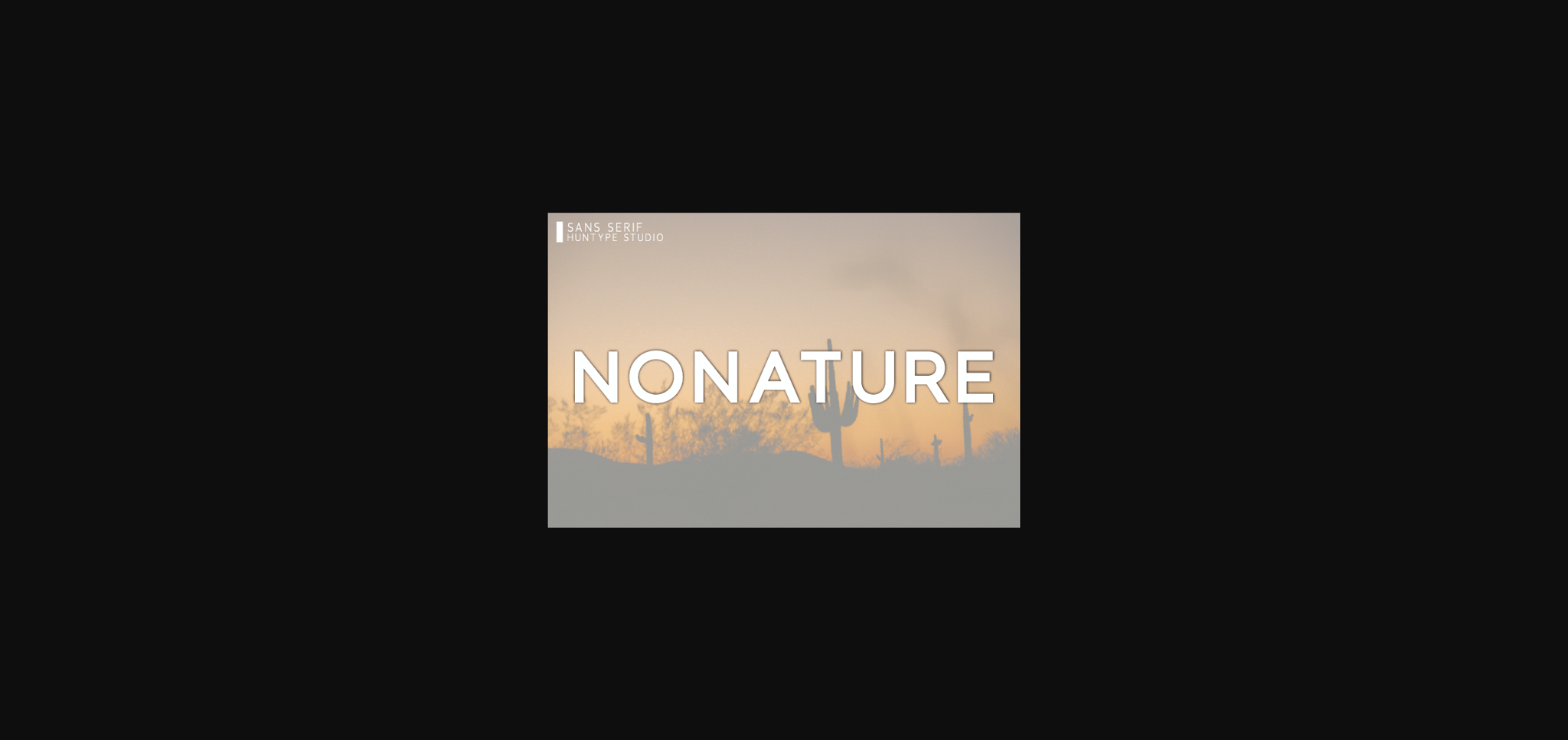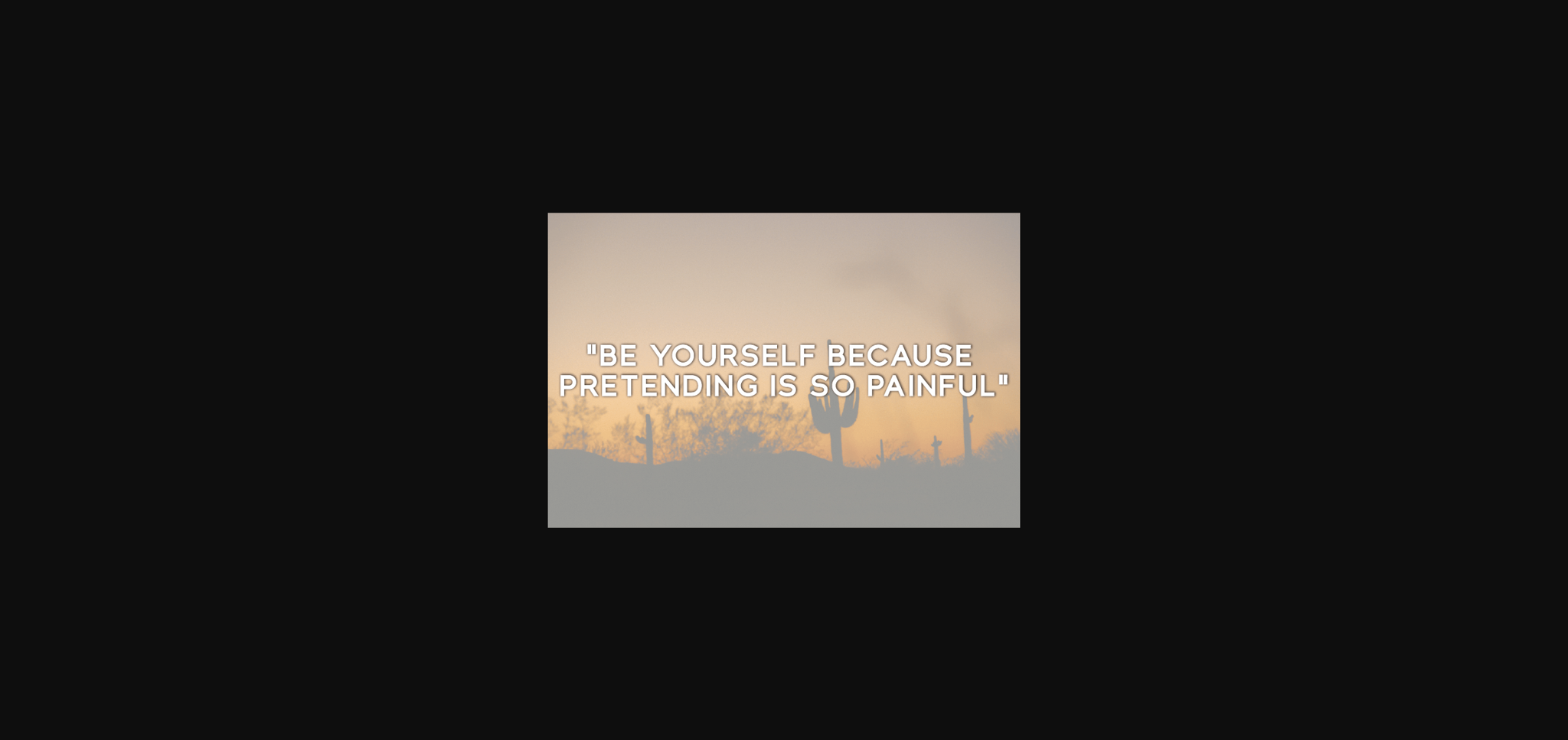
About Nonature Font
Nonature is an authentic and thick lettered sans serif font, designed to complement every project you wish to create.
It is perfect for displays, headers, invitations, save the dates, weddings, and so much more!